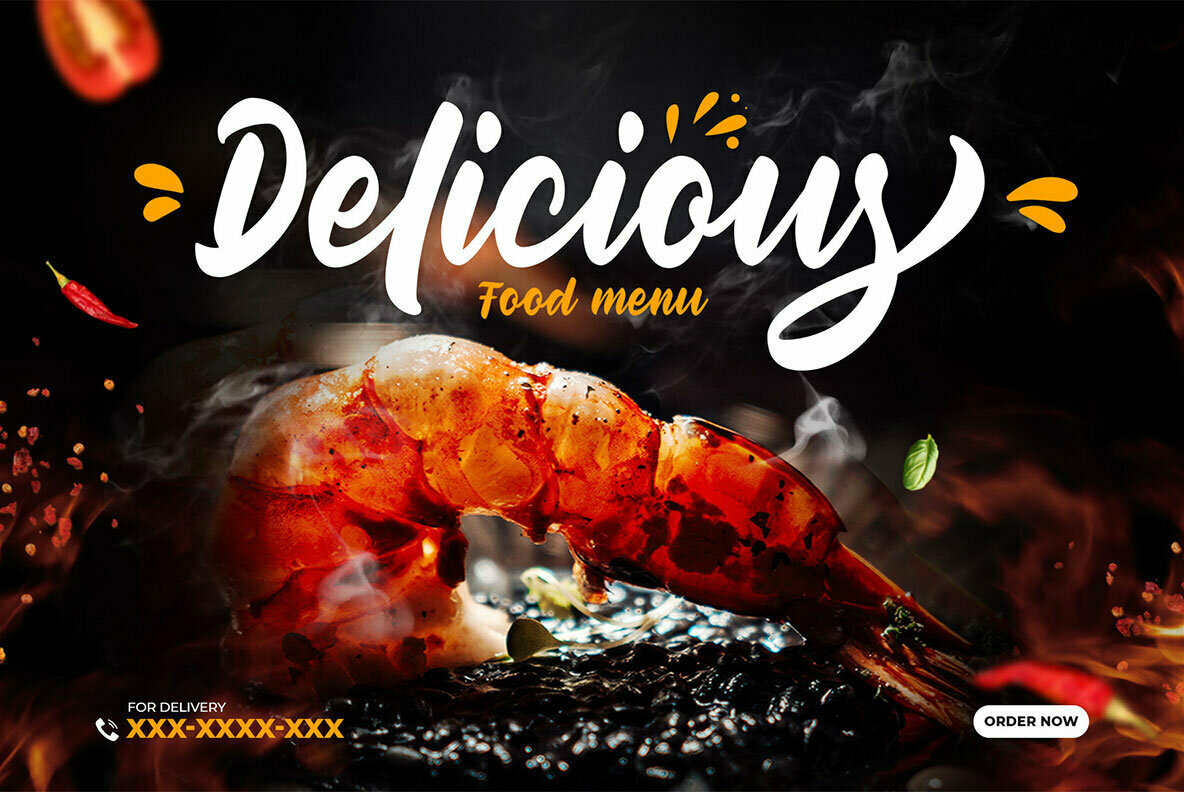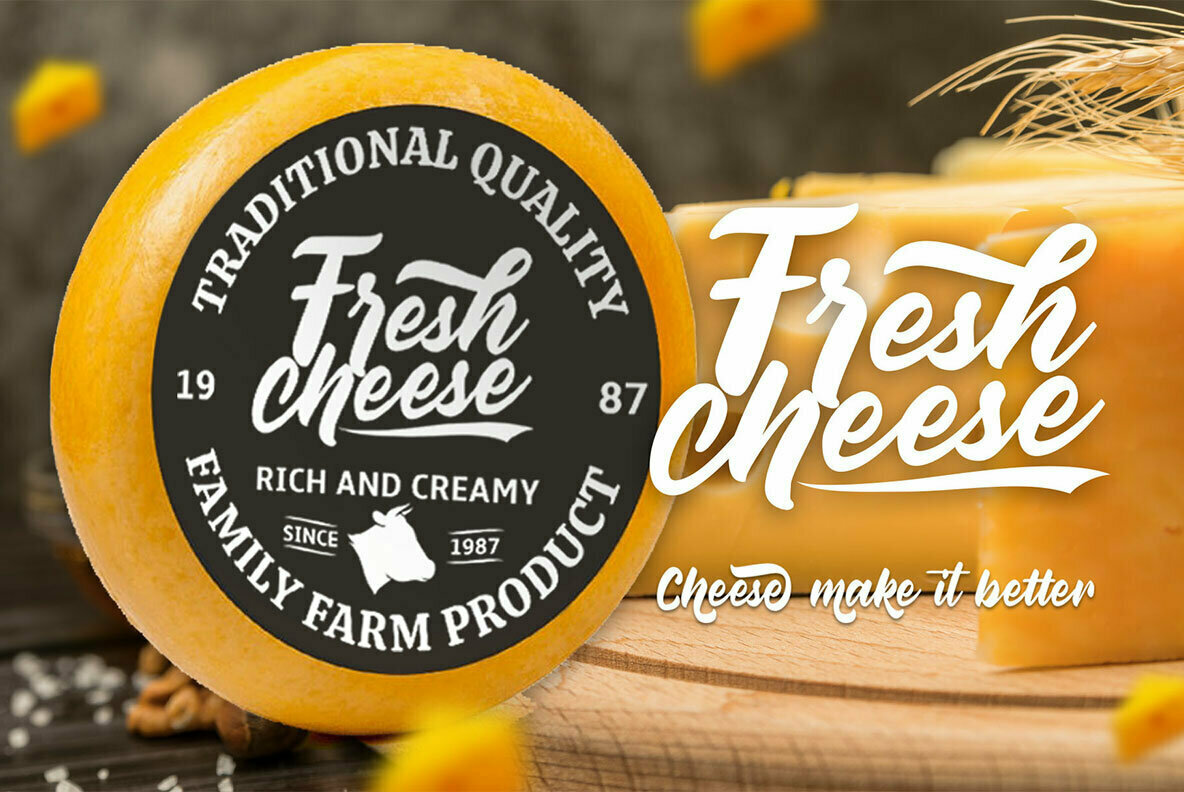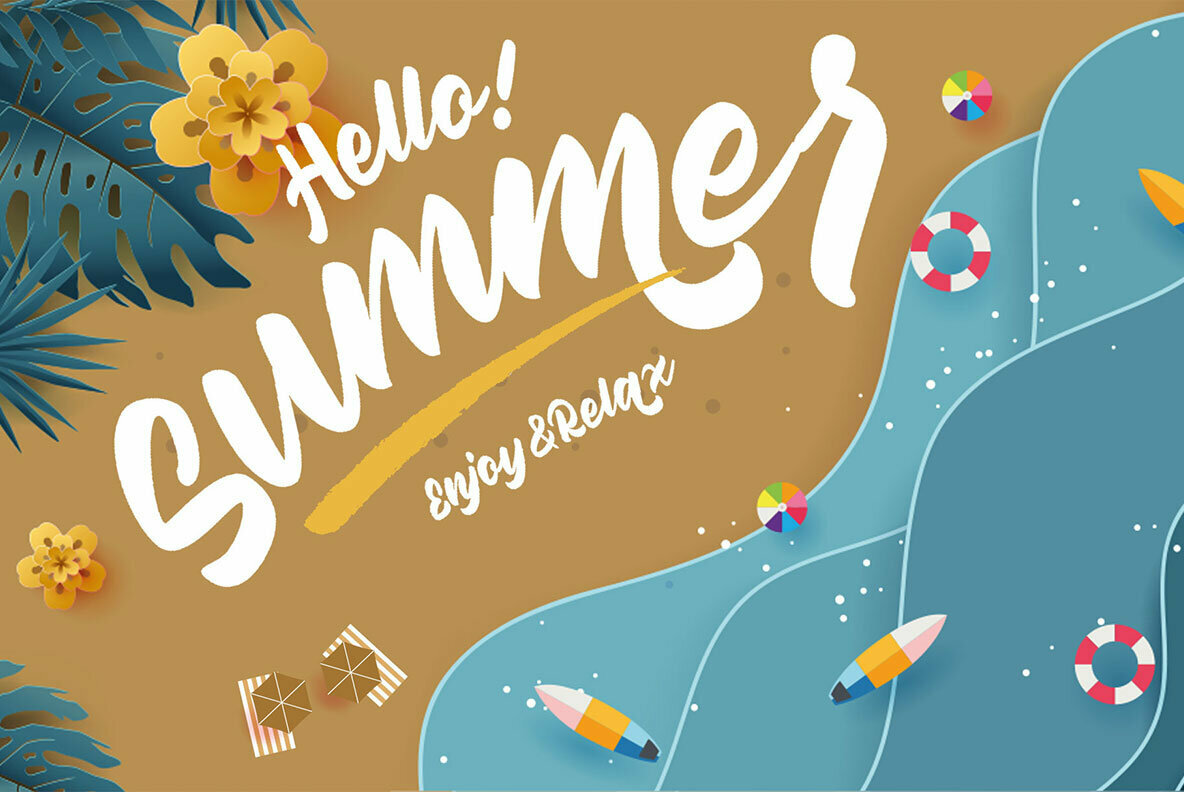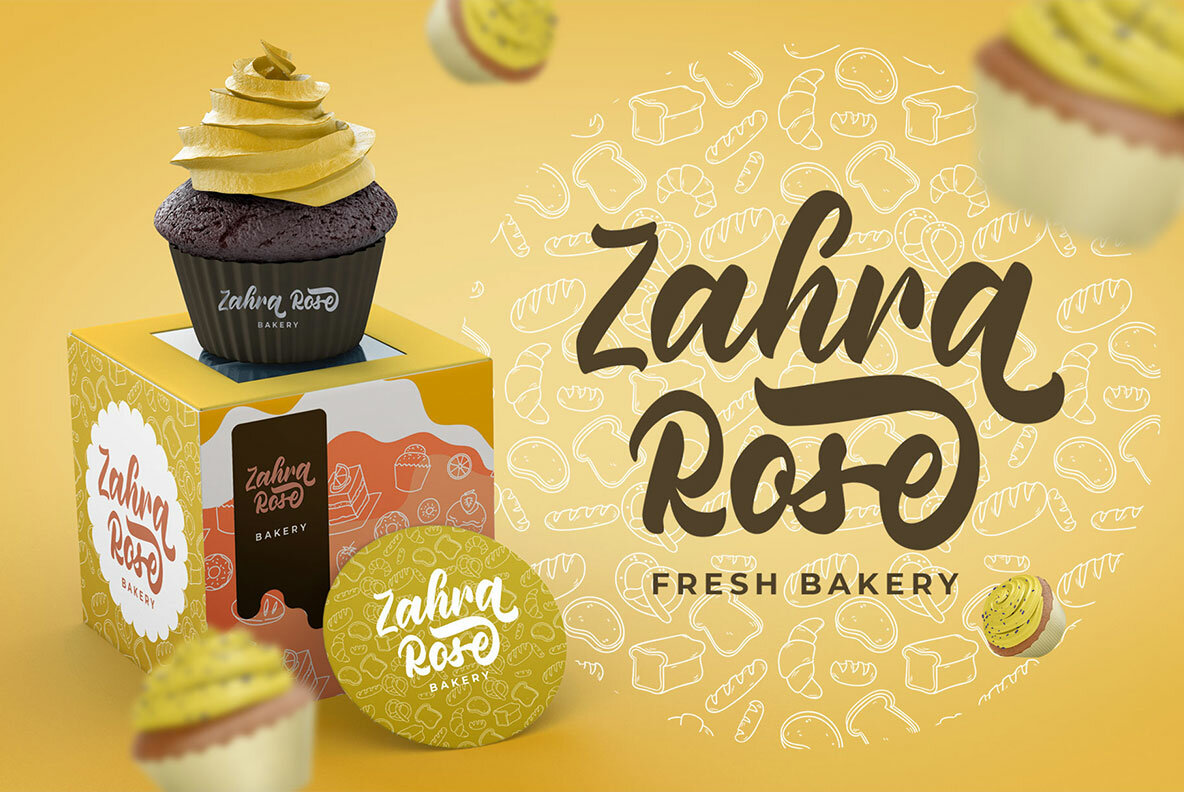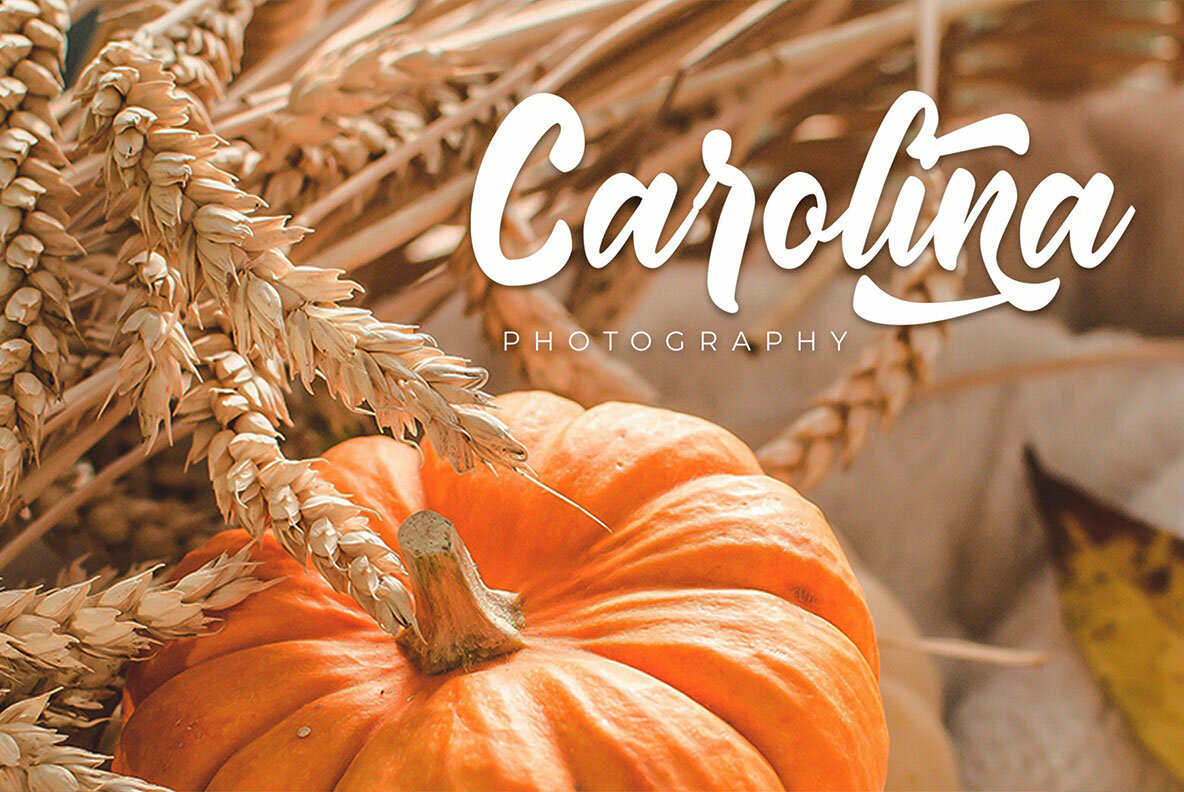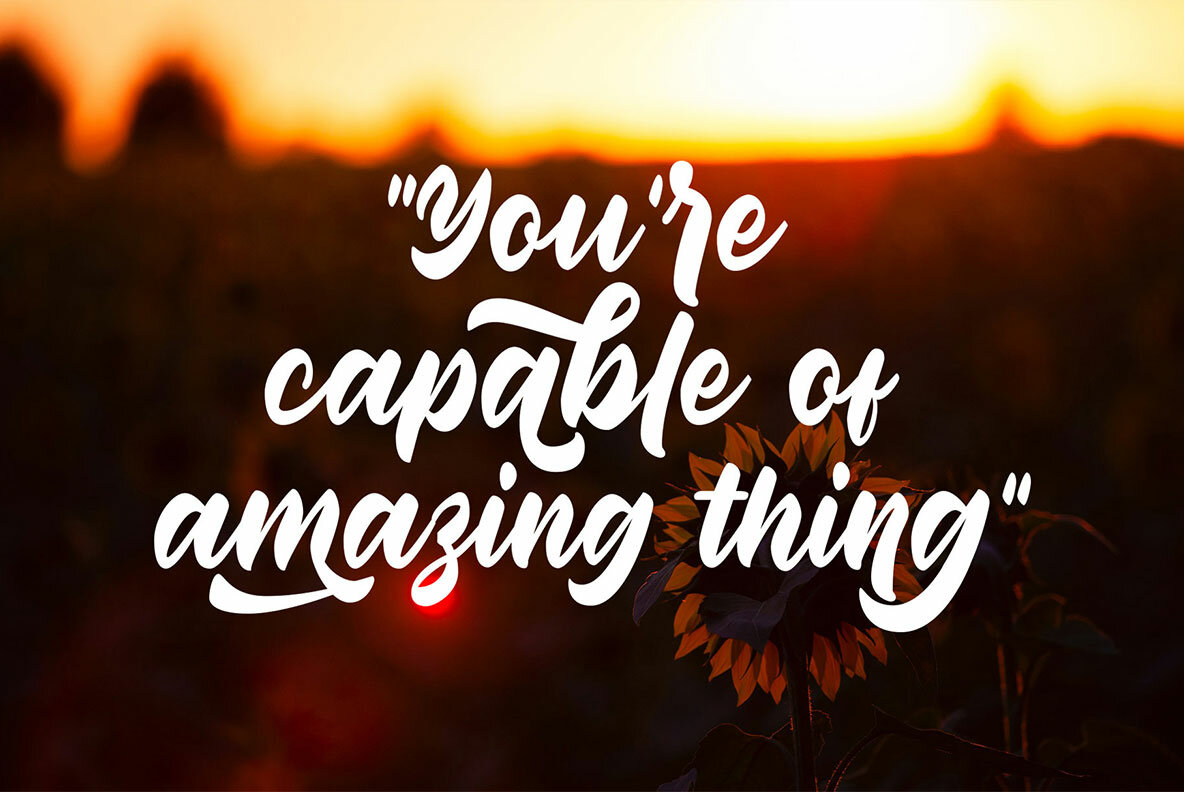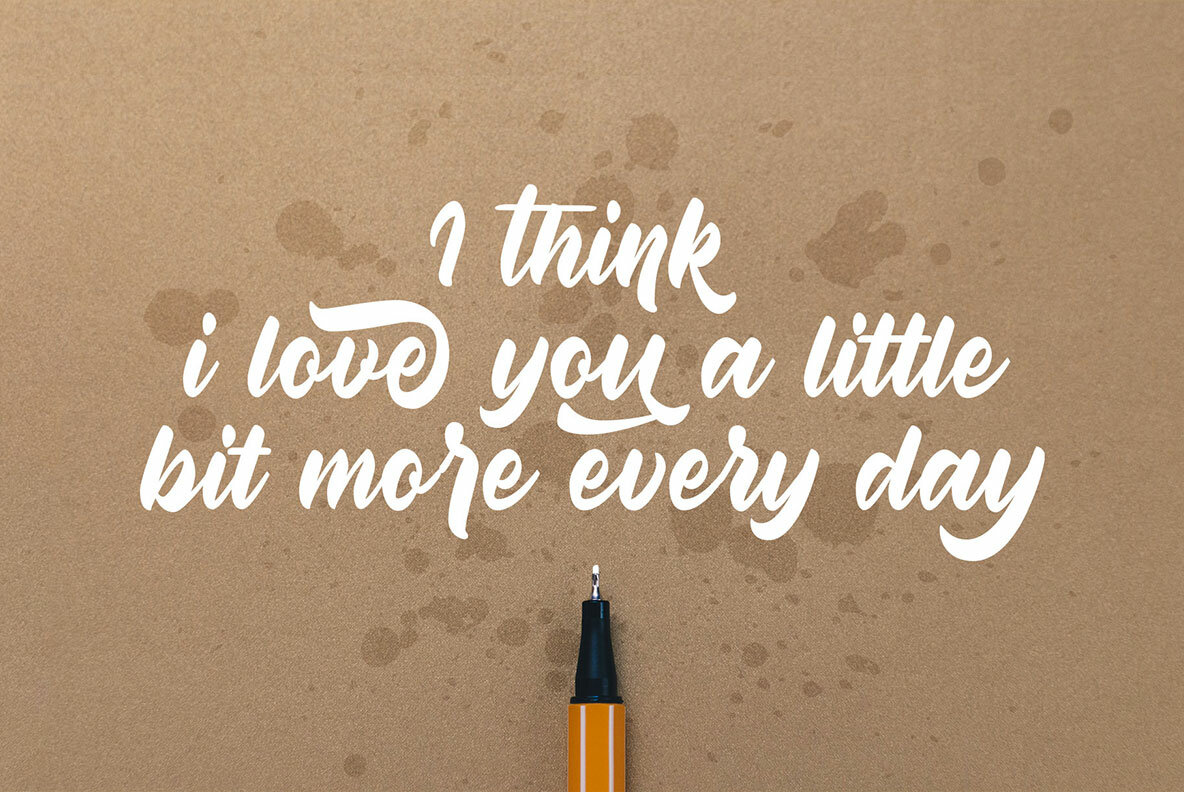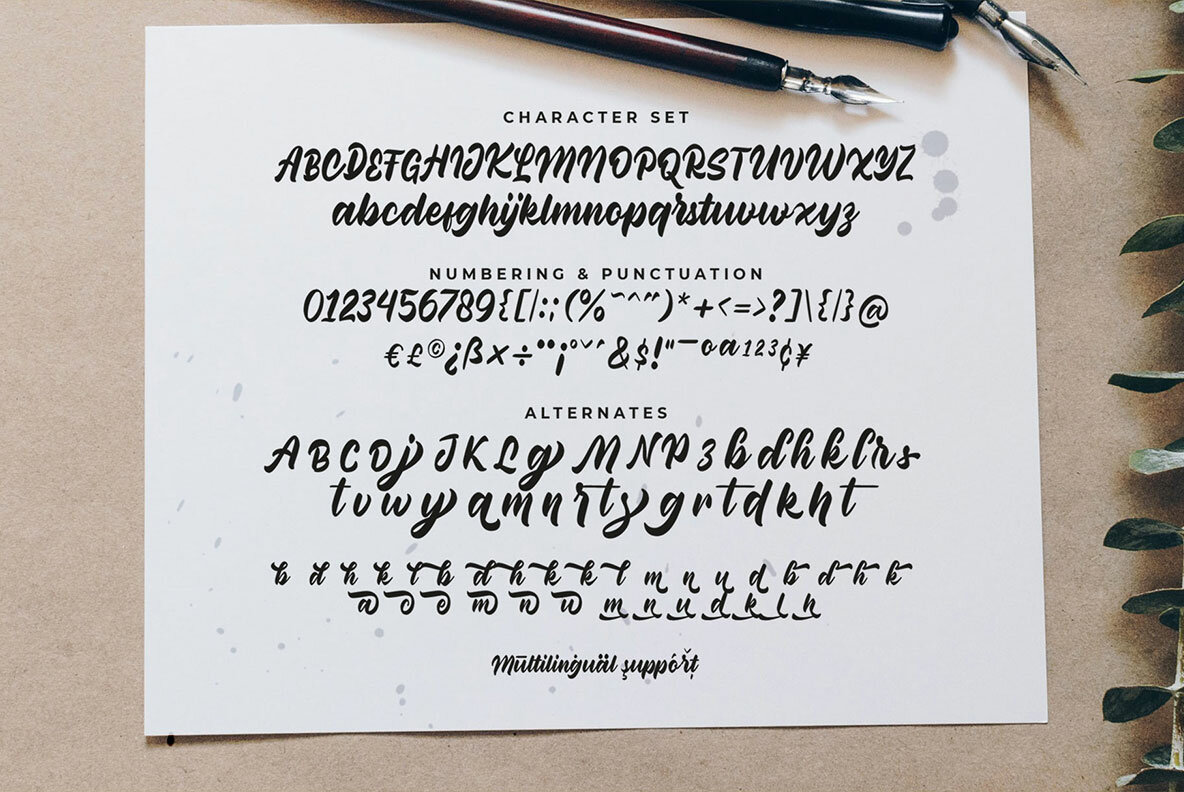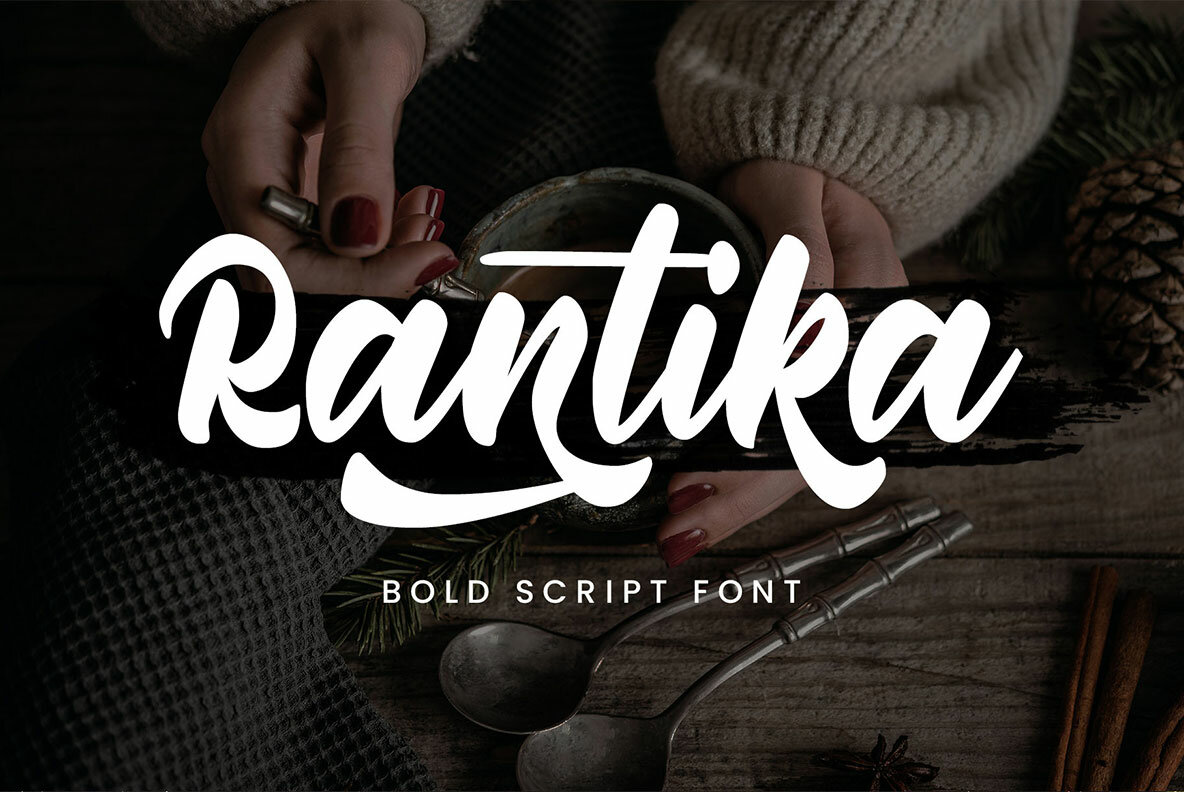
Rantika Font
Rantika
Rantika captures the joy and spontaneity of brush typography, offering a cheerful design option for creative projects. This lively typeface, recognized for its bold strokes and curved edges, derives its charm from informal manual brushwork, resulting in a natural, playful look perfect for a variety of uses. Use Rantika to infuse happiness into your designs, whether they are intended for cards, apparel, merchandise, invitations, or even menus. The font also fits well with posters, cute quotes, holiday designs, and more, making it a versatile choice for those seeking a touch of whimsy. Features:Rantika: Playful Brush Font with Bold Strokes